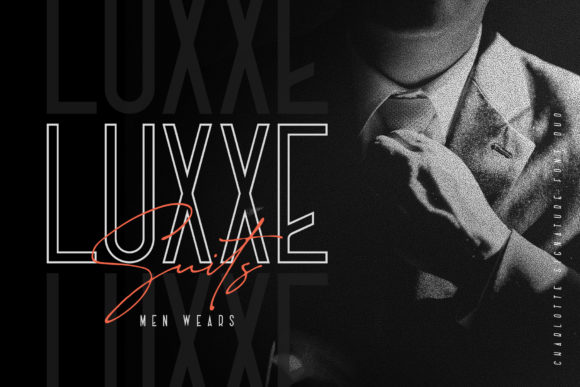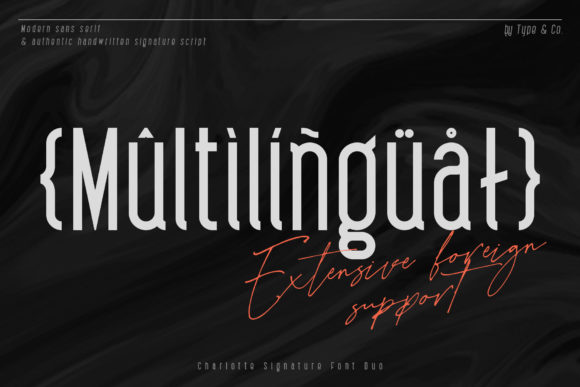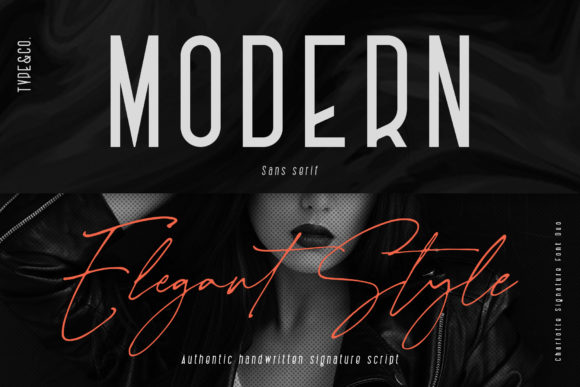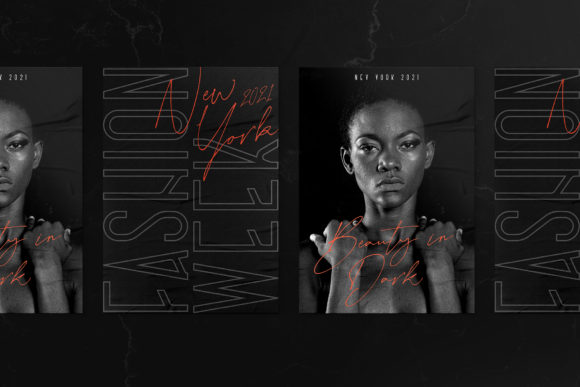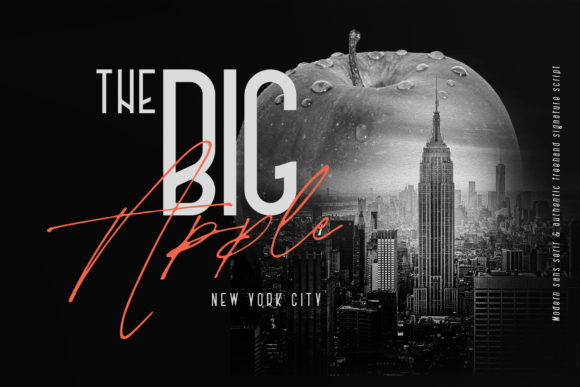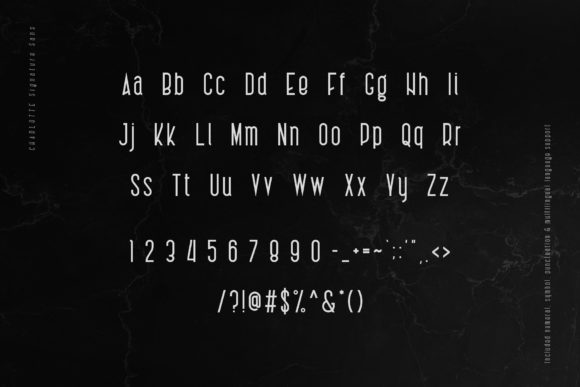
The Perfect Font to Elevate Your Designs
Have you ever stared at a blank page, trying to bring a creative idea to life, only to feel stuck by the limitations of your font choices? We’ve all been there. It’s that moment of frustration, when you wish you had the perfect tool to make your vision shine.
Enter the Charlotte Signature Font, a stunning duo font that’s about to become your new go-to companion for all your design projects. This incredibly versatile font is designed to elevate your creations to new heights, adding a touch of sophistication and elegance to any design.
For designers, the Charlotte Signature Font is a valuable addition to their toolkit. With its wide range of applications, it’s perfect for everything from branding and marketing materials to digital products and print designs. Whether you’re a seasoned pro or just starting out, this font is sure to become a trusted friend in your creative journey.
Charlotte Signature Font Key Features
- Font Family: Charlotte Signature Font is a unique, handwritten font designed for personal signatures and handwritten text.
- Unique Characteristics: The font features a flowing, cursive design with subtle variations in letterforms, making it ideal for creating personalized signatures and handwritten text.
Review of Charlotte Signature Font
As a designer, I was excited to dive into the Charlotte Signature Font, and I have to say it’s a unique and interesting addition to any project. ✨ One of the things that stands out is its elegant and refined aesthetic, perfect for high-end branding or luxury goods. The font is highly customizable, with a range of weights and styles to choose from.
- ✨ Elegant and refined aesthetic, perfect for luxury branding
- ✨ Highly customizable with various weights and styles
However, I do have a few concerns that prevent me from giving it a full 5-star review. ⚠️ Firstly, the font can be a bit difficult to read in smaller sizes, and the spacing between letters can be inconsistent. Additionally, some users may find the font a bit too ornate or over-the-top, which may not be suitable for all projects.
- ⚠️ Can be difficult to read in smaller sizes
- ⚠️ Inconsistent spacing between letters
- ⚠️ May be too ornate or over-the-top for some projects
Overall, I think the Charlotte Signature Font is a solid choice for designers who want to add a touch of elegance and sophistication to their projects. While it may have some limitations, its unique aesthetic and high level of customization make it a worthwhile investment for the right designer.
For best results, use the Charlotte Signature Font in conjunction with high-quality images and graphics.
Experiment with different font sizes, colors, and styles to create a unique and eye-catching design.
The Charlotte Signature Font is ideal for:
- Personal branding and logos.
- Editorial and publishing designs.